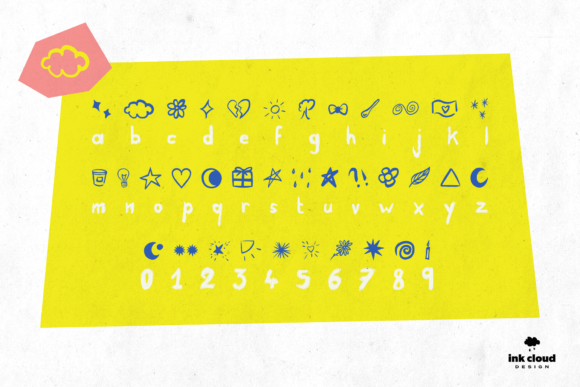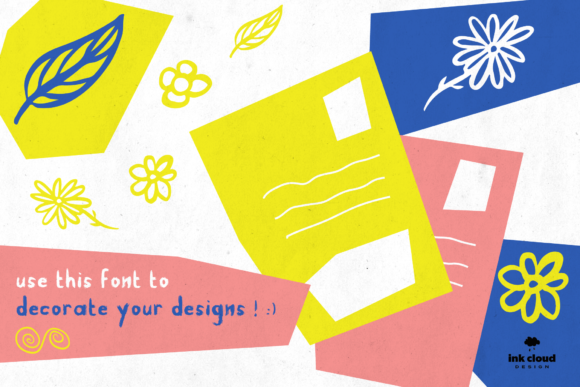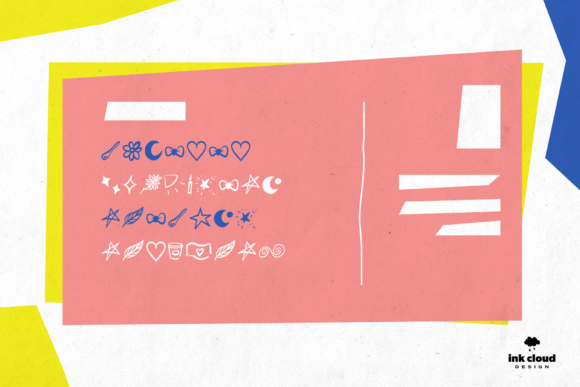
Dingbats Font
About Dingbats Font
Absolutely! “Dingbats” is a versatile and useful dingbats font that can add a special touch to any creation. With its collection of unique symbols and icons, this font has the potential to brighten up your designs and make them stand out.
“Dingbats” is designed to be a decorative and ornamental font, consisting of various symbols and pictograms instead of traditional alphanumeric characters. This makes it a great choice when you want to add visual interest and flair to your designs.
No matter the topic or theme of your project, “Dingbats” can be a valuable asset to your font library. Whether you’re designing posters, logos, invitations, presentations, or even social media graphics, this font provides a wide range of symbols that you can incorporate into your designs.
The beauty of “Dingbats” is its versatility. The symbols and icons included in the font cover a broad range of themes, such as nature, technology, animals, food, music, and more. This allows you to find the perfect symbol to complement your design and convey your message effectively.
One of the advantages of using “Dingbats” is the ability to customize and combine the symbols to create unique compositions. You can resize, rotate, or mirror the symbols to fit your design layout, and you can also apply different colors or effects to match your desired style.
Furthermore, “Dingbats” can be a great asset when designing for various occasions and projects. Whether it’s a festive holiday design, a playful children’s illustration, or a modern and minimalist composition, this font can add that extra touch of visual interest and creativity.
So, go ahead and add “Dingbats” to your font library. With its wide range of symbols and its ability to brighten up any creation, this font can be a valuable tool in your design arsenal. Explore the possibilities and let your creativity shine with the help of “Dingbats”!